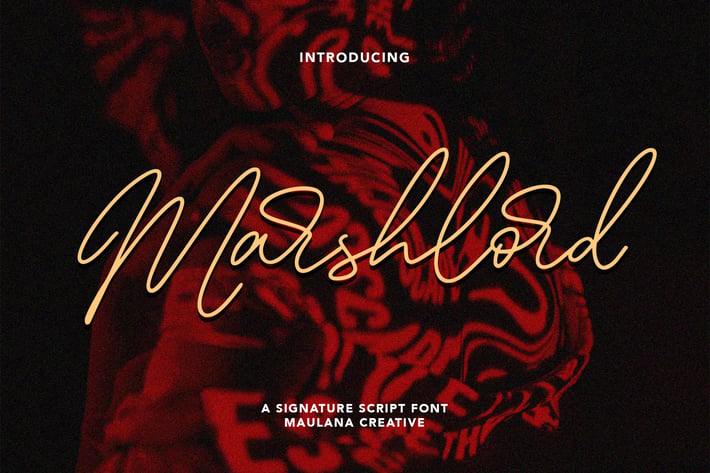
Marshlord Signature Script Font
Marshlord is a modern handwriting font with signature style. It included opentype features Ligature and alternate lowercase. Marshlord support multilingual more than 100+ language. This font is good for logo design, Movie Titles, Books Titles, a short text even a long text letter and good for your secondary text font with sans or serif. Make a stunning work with Marshlord font.